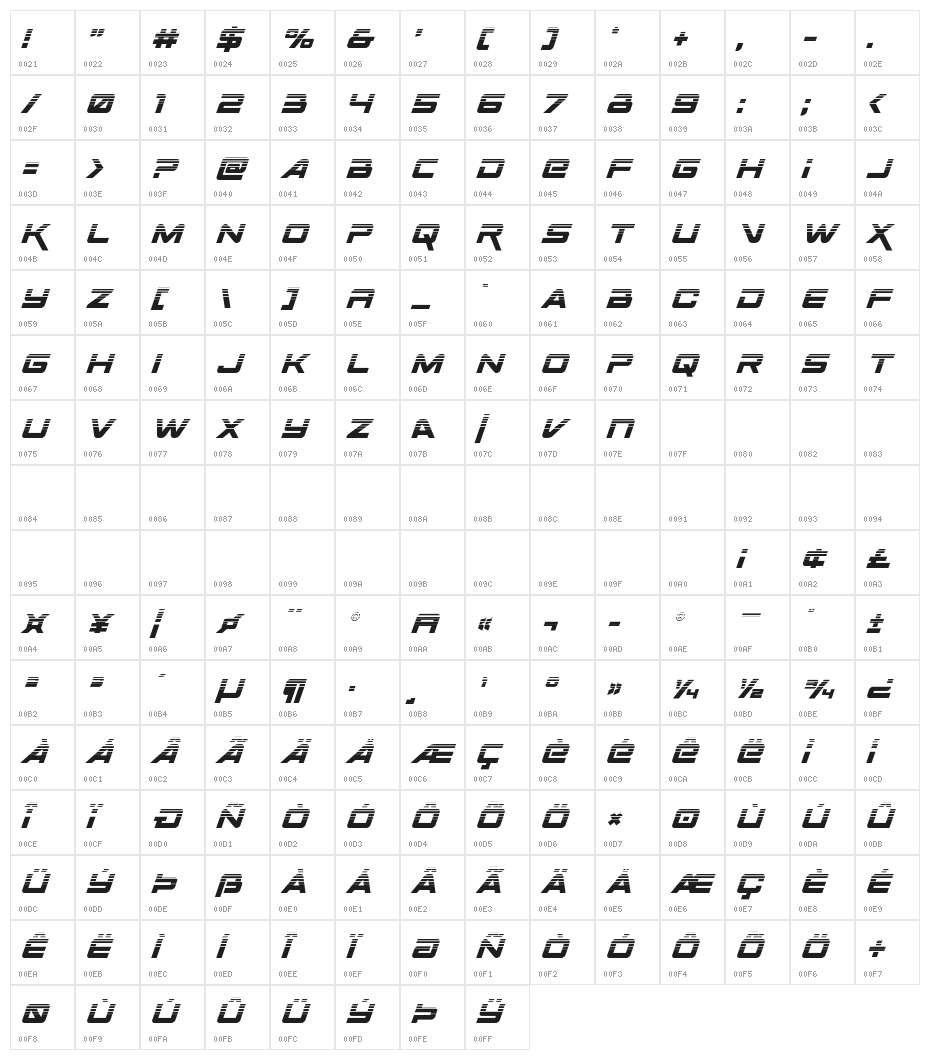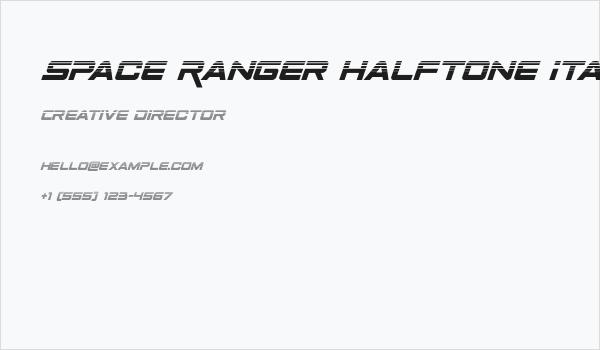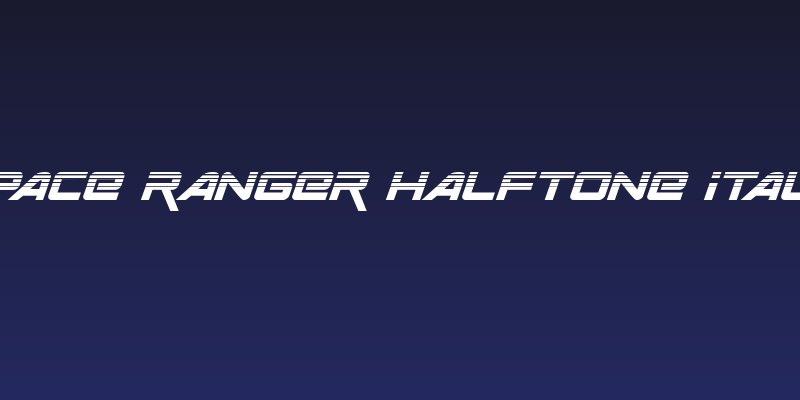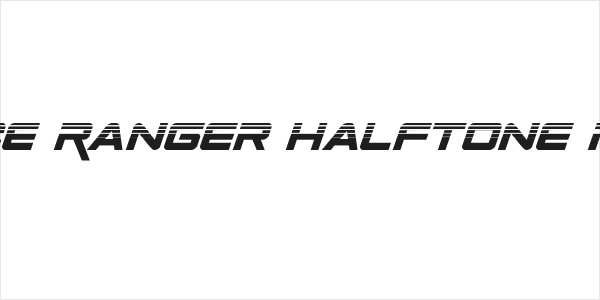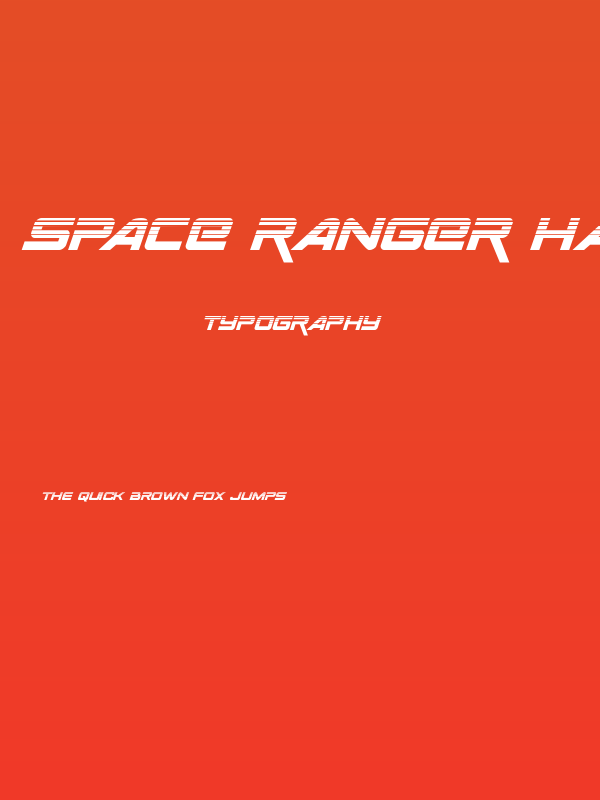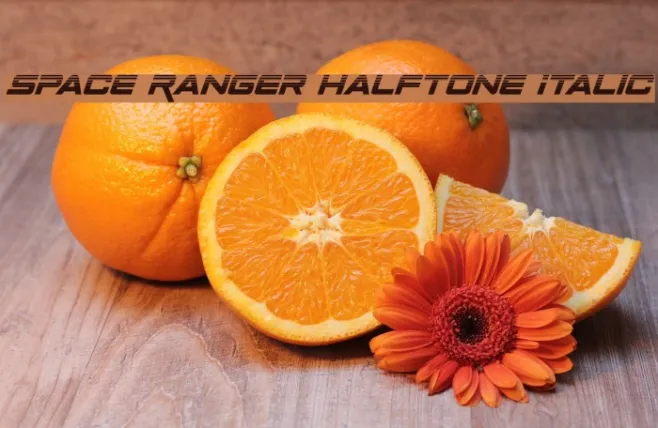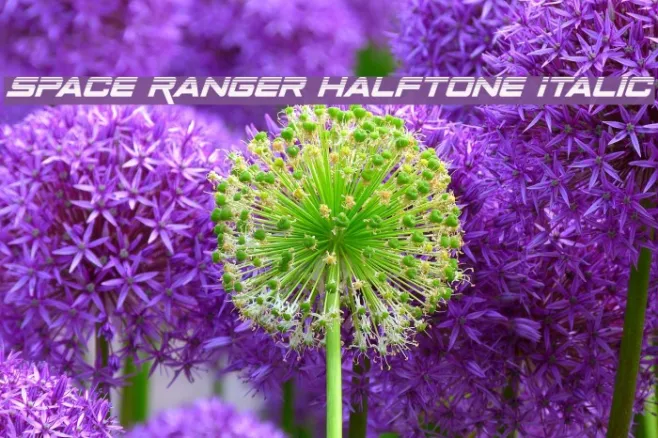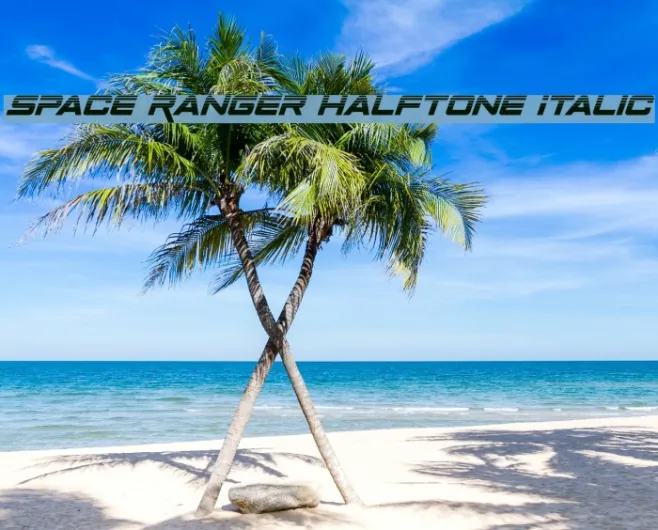
Space Ranger Halftone Italic Font
Space Ranger Halftone Italic Description
This font features a futuristic and dynamic design, characterized by its italicized and bold appearance. The letters are constructed with a halftone effect, creating a sense of movement and speed. The geometric shapes and sharp angles give it a modern and technological feel, making it ideal for projects that require a sci-fi or space-themed aesthetic. The consistent use of horizontal lines within the characters adds a unique texture and depth, enhancing its visual appeal. This font is perfect for capturing attention and conveying a sense of innovation and forward-thinking.
| Proposed Projects | Ideal for sci-fi movie posters, video game titles, tech branding, and futuristic event flyers. |